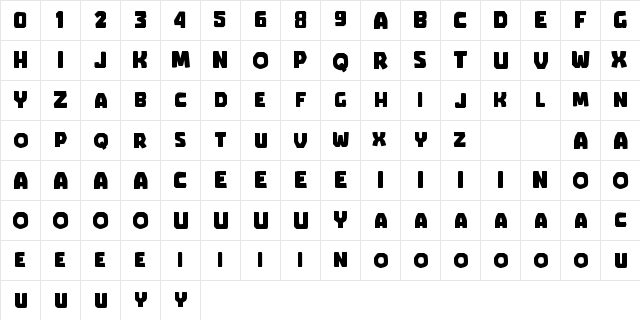
GUMDROP Regular
| Foundry | TOKOKOO Studio |
| Designer | Sahirul |
Design Context for GUMDROP Typeface
GUMDROP is a composed and adaptable typeface that performs quietly and consistently across a wide range of design contexts.